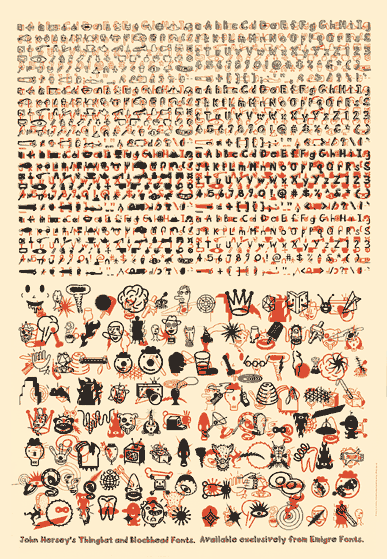
Blockhead Illustrations
By John Hersey
I've always liked diagrams and mechanical-looking drawings because they're so pure and their intention is to be clear and to communicate in a literal, practical way. I like to mimic that style but use it to make nonsense - images that are cryptic and ambiguous.